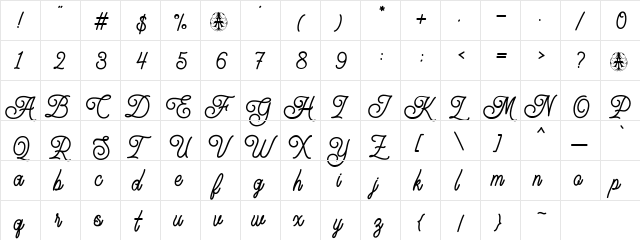
FInezia Personal Use Only Regular
Design Context for FInezia Personal Use Only Typeface
FInezia Personal Use Only is a composed and adaptable typeface that performs quietly and consistently across a wide range of design contexts.